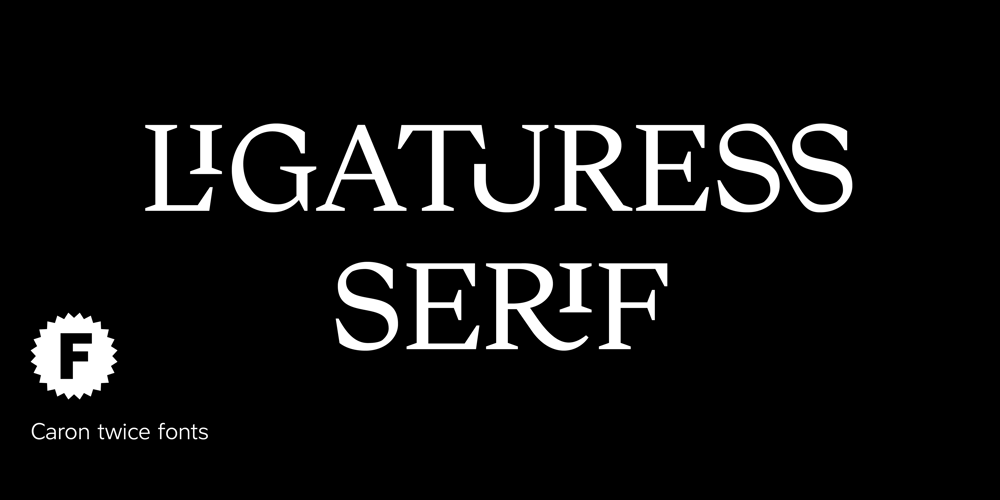
Ligaturess Serif
Ligaturess Serif font
Ligaturess Serif Font Family was designed by Martin Činčár and published by Caron twice. Ligaturess Serif contains 5 styles and family package options. Ligaturess Serif is a modification of Textworthy Serif. This modification contains 79 uppercase ligatures. 59 lowercase ligatures. And 493 ligatures with diacritics marks.Ligatures are groups of letters joined together and usually compensate for the free space between individual letters. Ligaturess Serif, in addition to the basic ligatures – fi, fl… – also includes superstandard ones – CA, OO, ST, SS, VA… -. Text set in Ligaturess Serif has a unique and interesting look. The font works well in headings. And when using capital letters. A book cover, a chapter title, an inscription on a poster or even an interesting logo are the places for which the Ligaturess Serif font was designed.